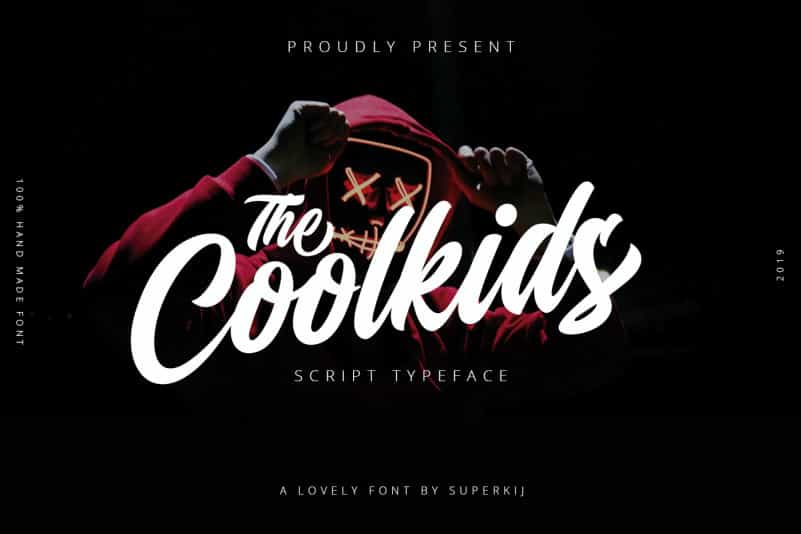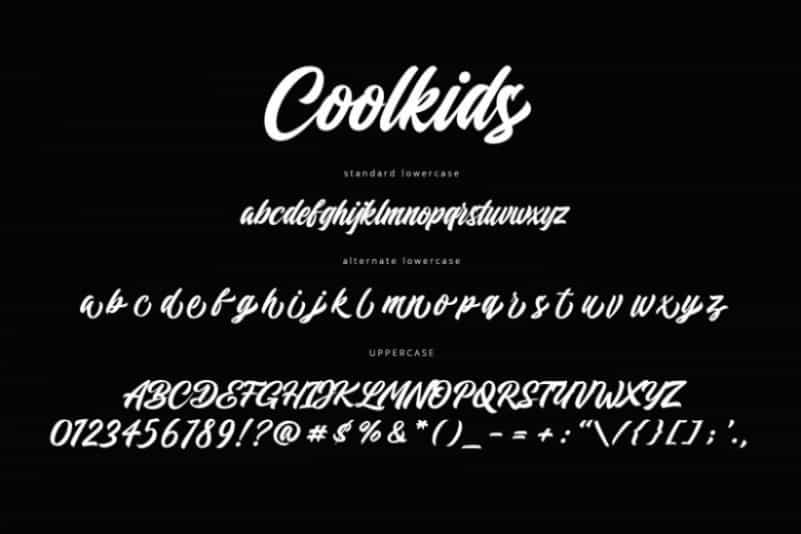
Coolkids Script Font was created and shared by Adhi Nugraha. It is a script type font with a powerful personality. It is also suitable for other projects like stationary invitations, logos, social media, weddings, branding, graphic design with additional swashes. and would look good with many serifs fonts to finish the project you want to work on.